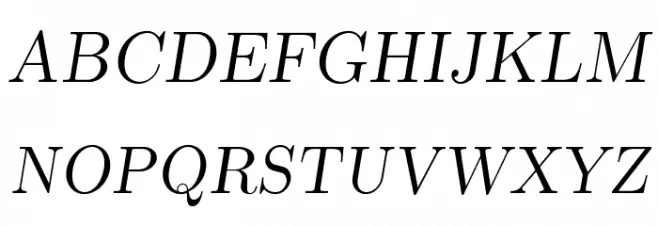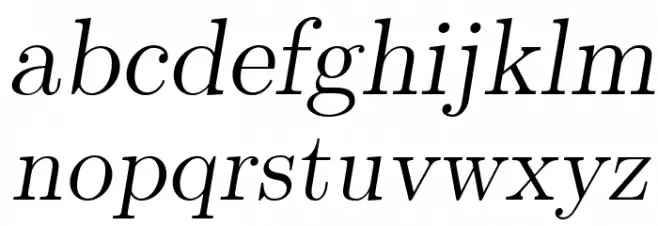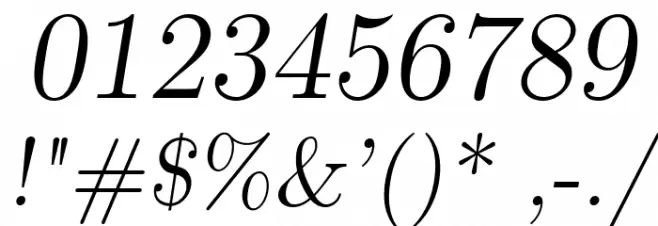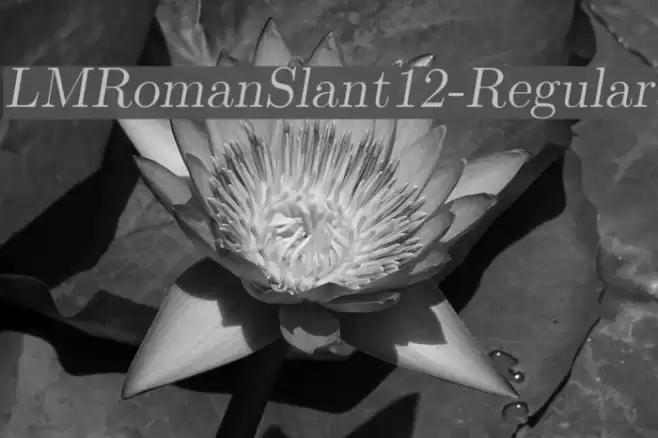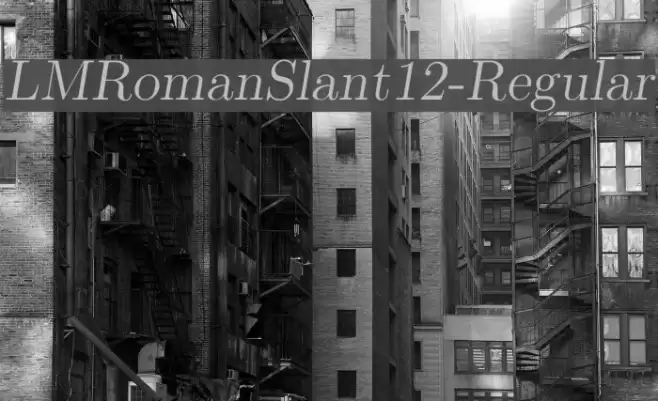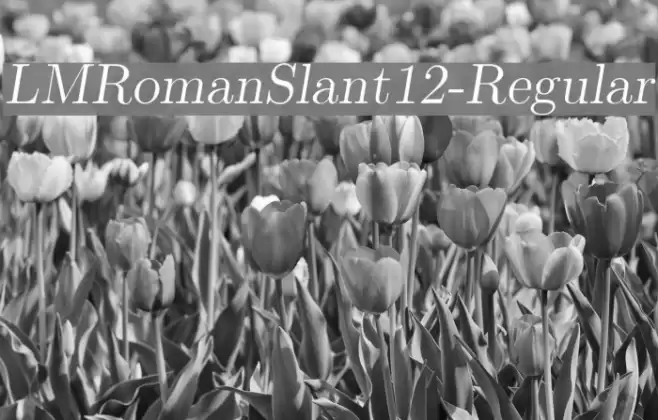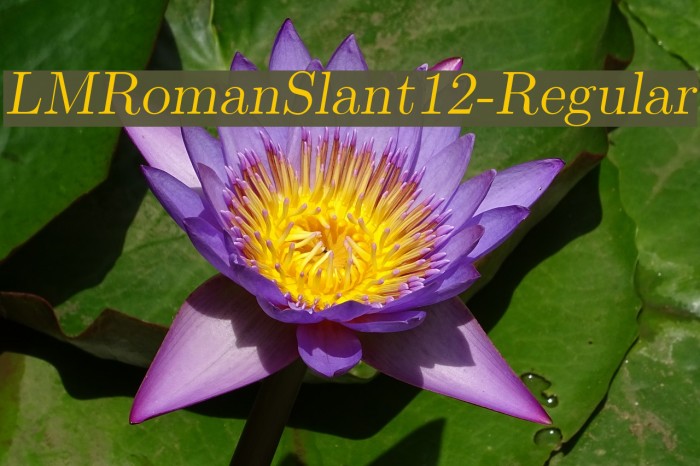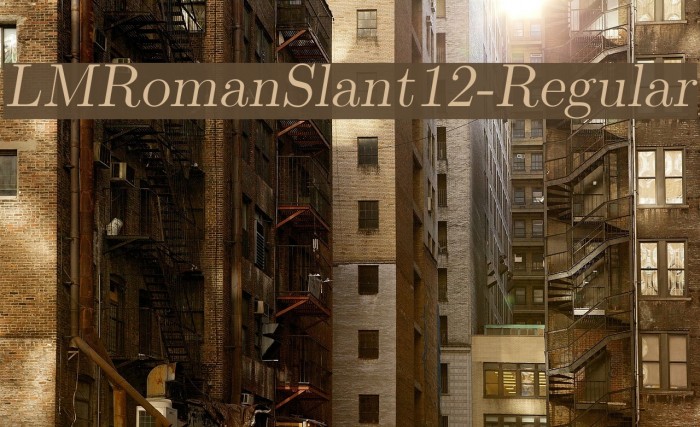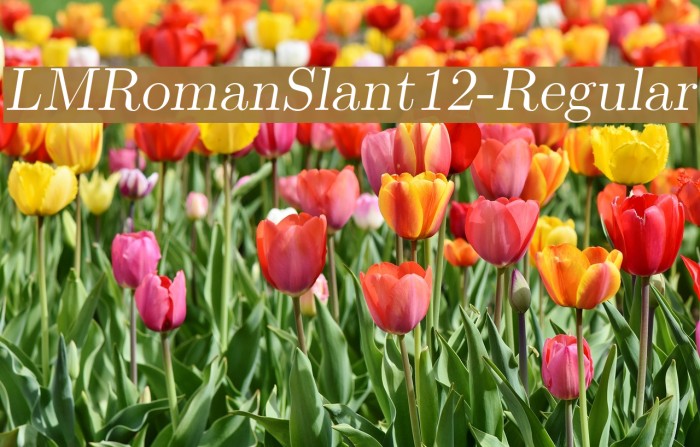
LMRomanSlant12-Regular
This font exhibits a classic and elegant style with a slight slant, giving it a sophisticated and formal appearance. The characters are well-proportioned with a medium contrast between thick and thin strokes, enhancing readability while maintaining a refined aesthetic. The serif design adds a touch of tradition and formality, making it suitable for a variety of professional and creative applications. The spacing between characters is normal, ensuring clarity and legibility in both large and small sizes. This font's timeless appeal makes it versatile for use in both digital and print media.
A classic, elegant serif font with a slight slant and medium contrast.
- Proposed Projects: Ideal for formal documents, invitations, book covers, and editorial design.
- Category: Serif
- Overall Style: Classic